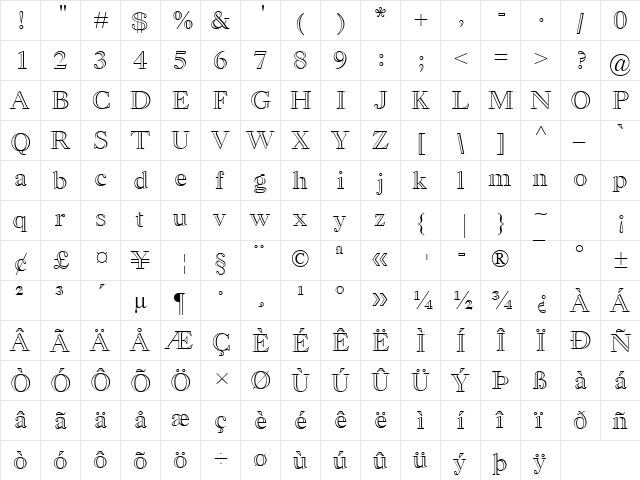
Old Style MT Bold Outline Regular
Design Context for Old Style MT Bold Outline Typeface
Old Style MT Bold Outline is built around its visual character rather than neutral utility — its distinctive forms are designed to make an impression at display sizes. Its bold stroke weight gives it real presence on the page.
Font Pairing: Pair with a clean neutral sans-serif for body copy to let Old Style MT Bold Outline's character lead without overwhelming the composition.
Pro Tip: Treat Old Style MT Bold Outline as the centrepiece of your typographic hierarchy. One strong heading set in a decorative face can carry an entire layout.